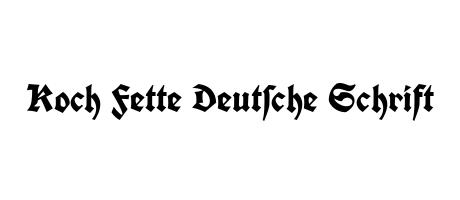
Koch Fette Deutsche Schrift
By Peter Wiegel
Koch Fette Deutsche Schrift is a bold, blackletter typeface. Its thick strokes and sharp serifs create a medieval, gothic aesthetic. The letters are tall and narrow, with distinct angular forms. The overall impression is one of power and historical weight, suitable for formal or dramatic applications. It’s a highly stylized font with a strong presence.